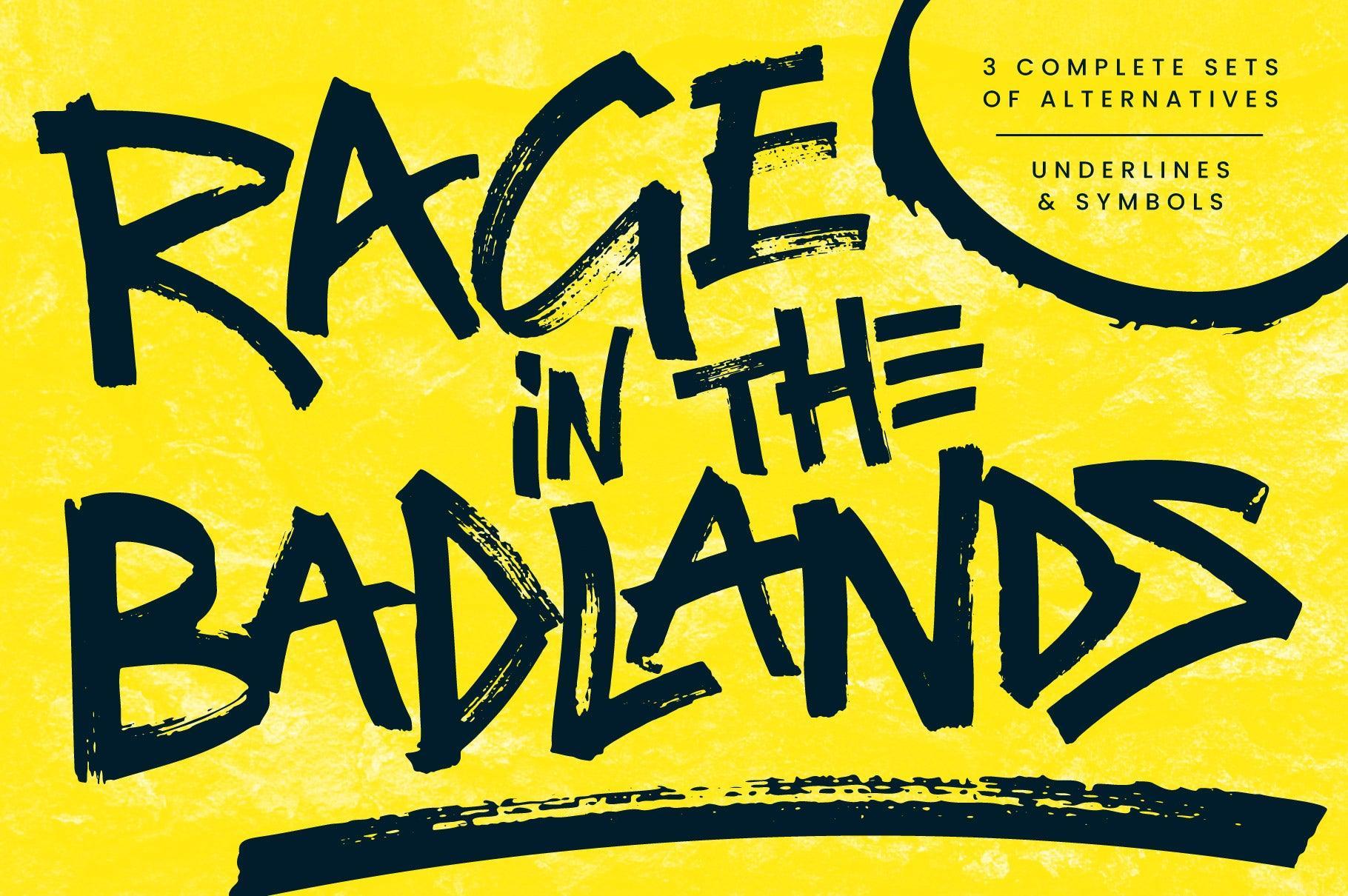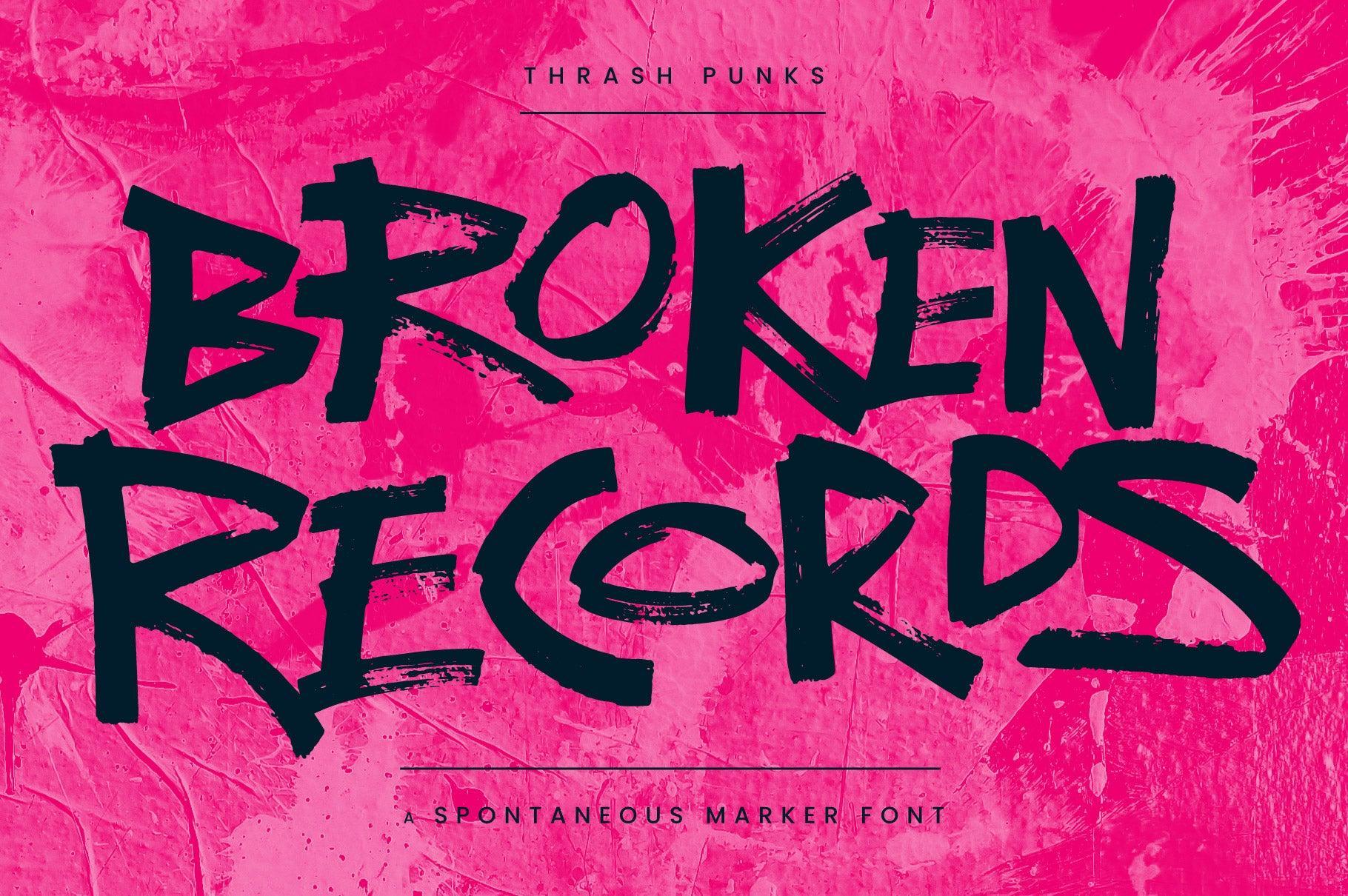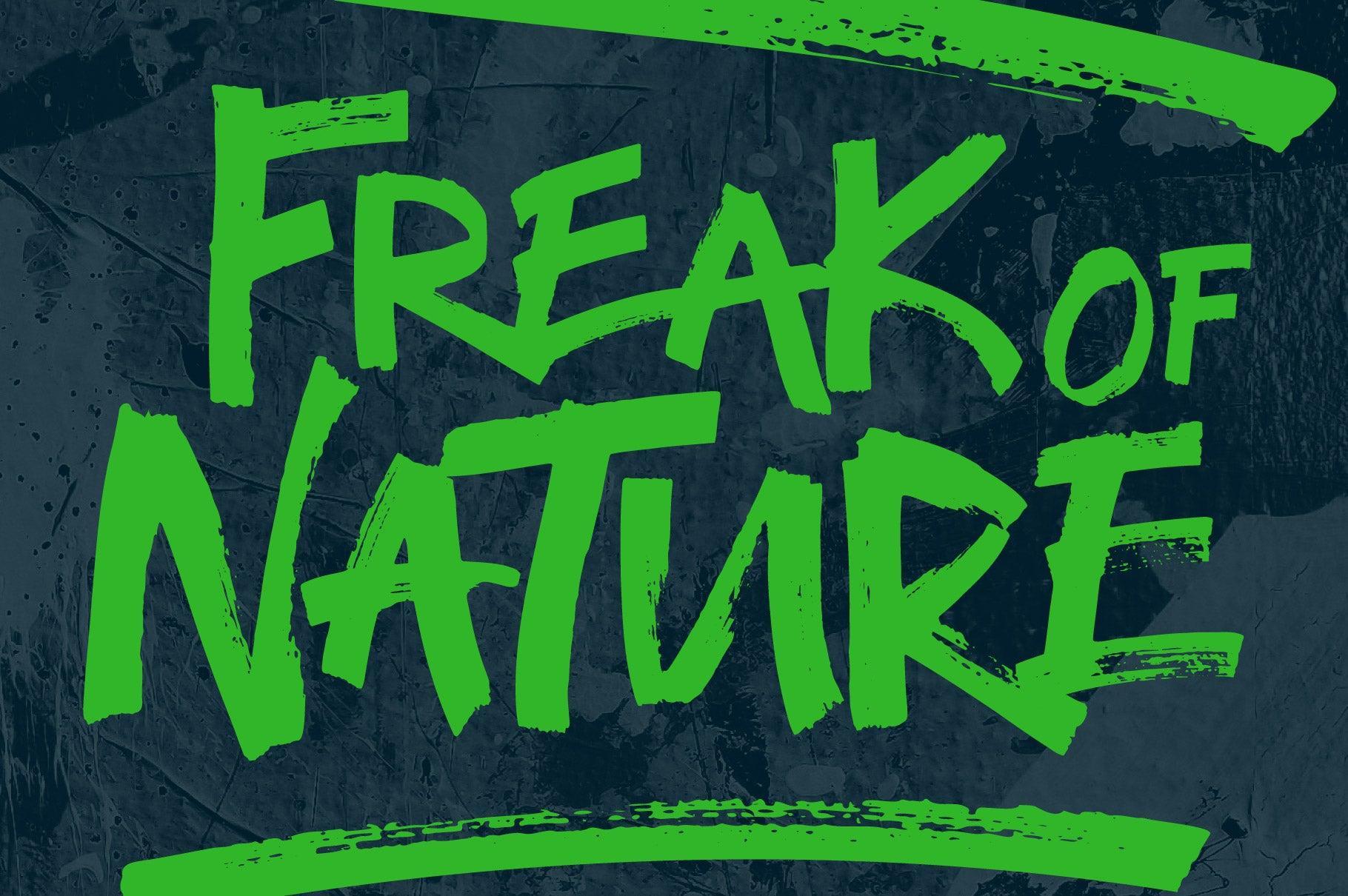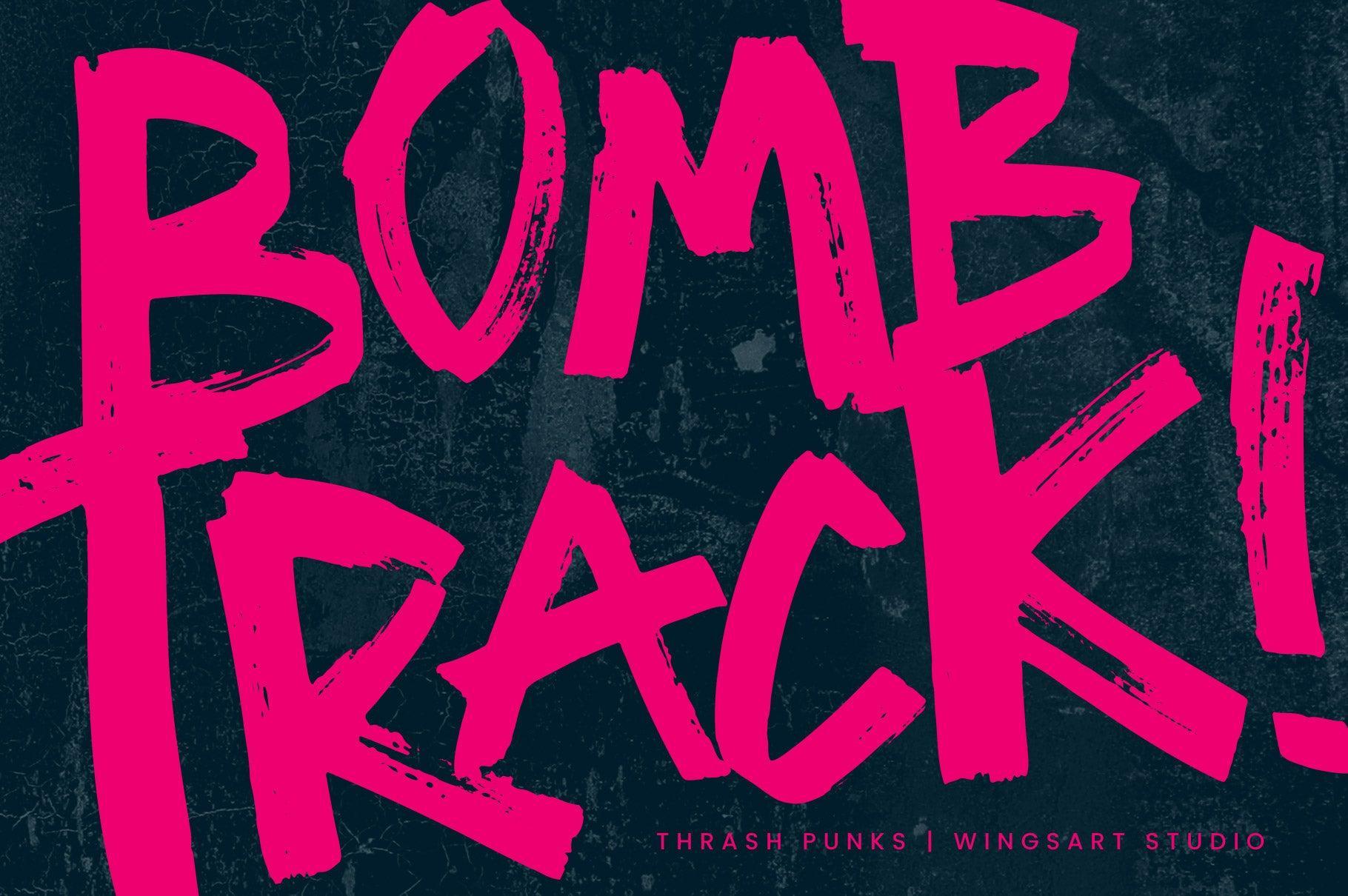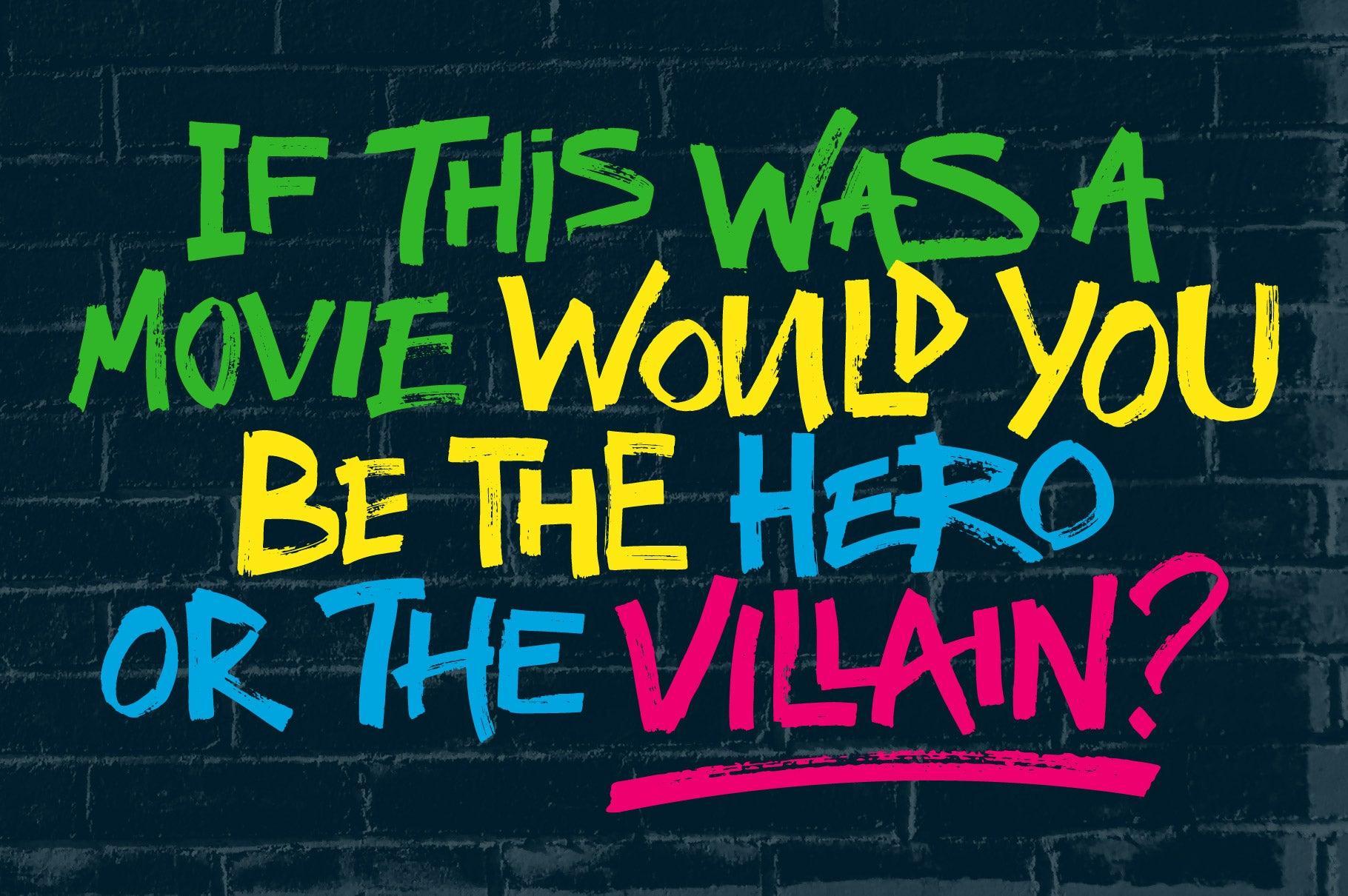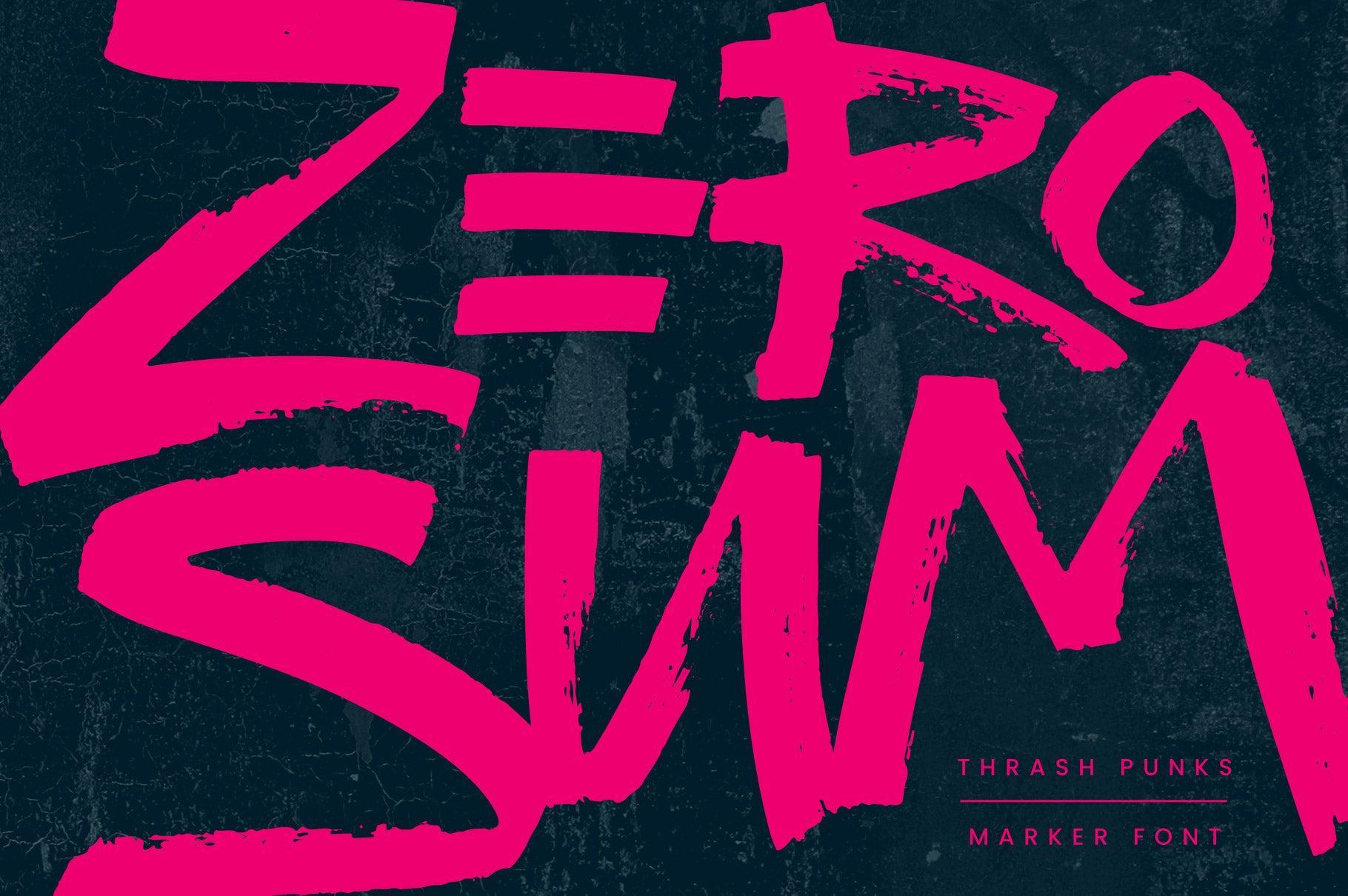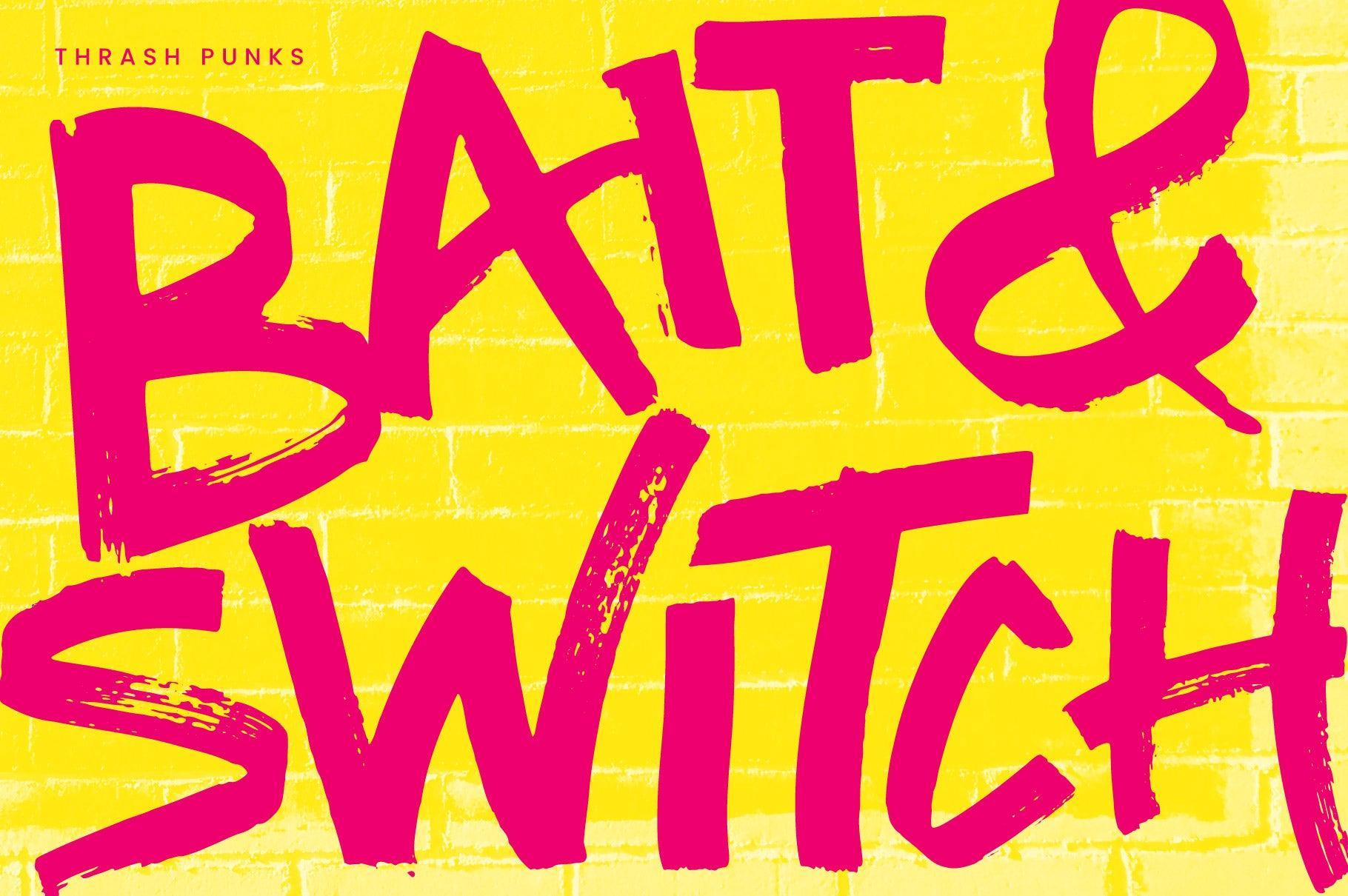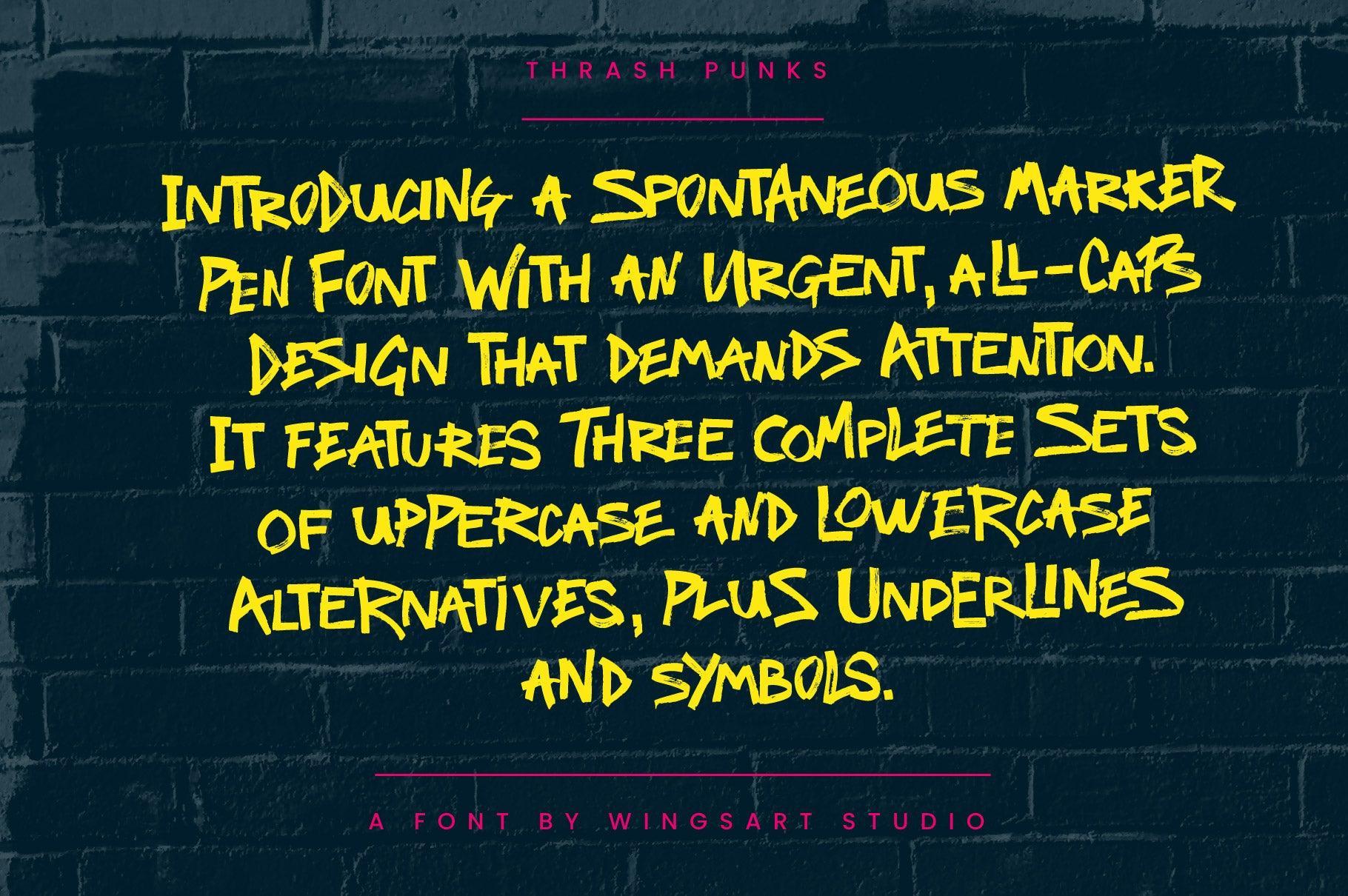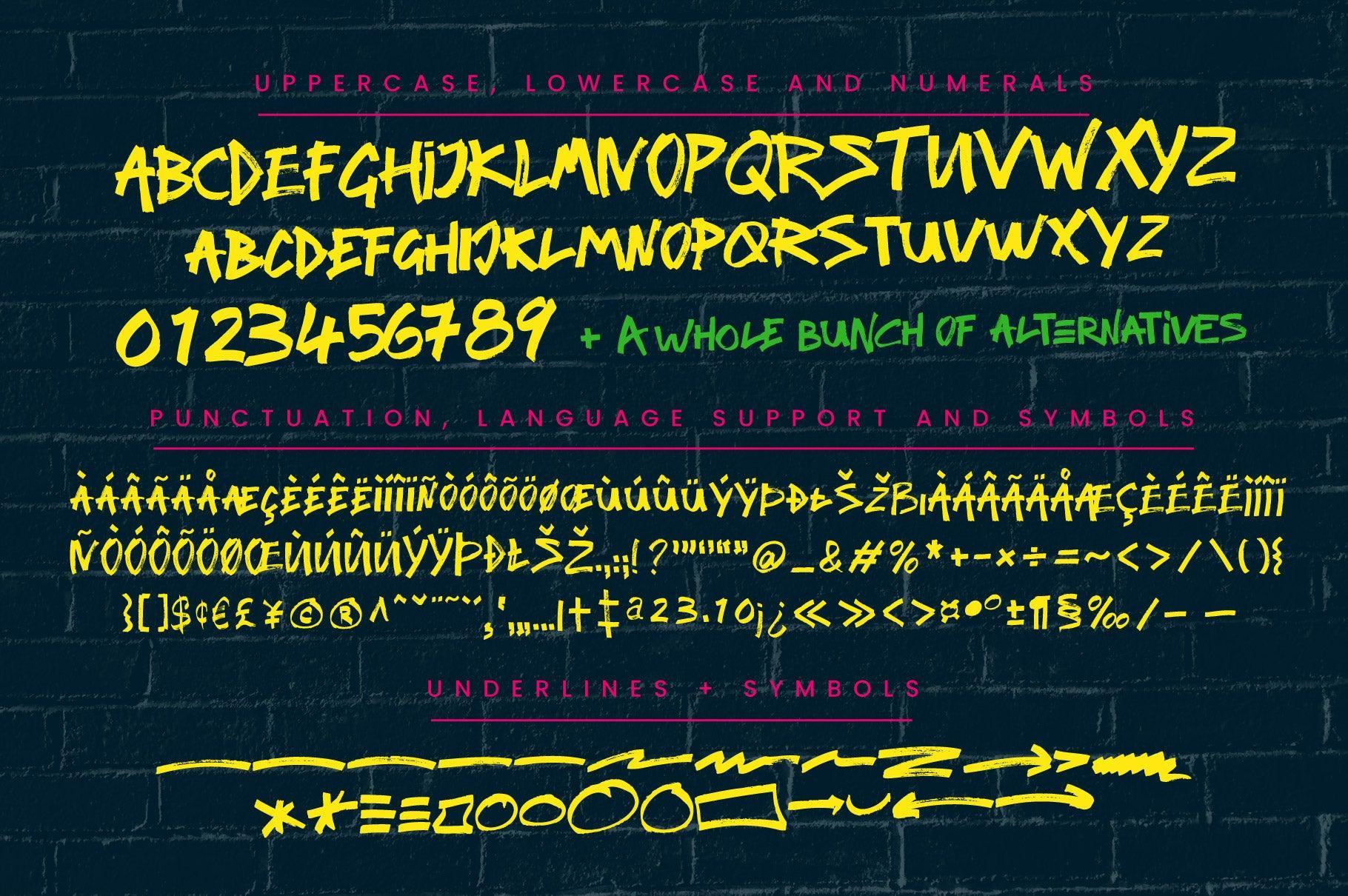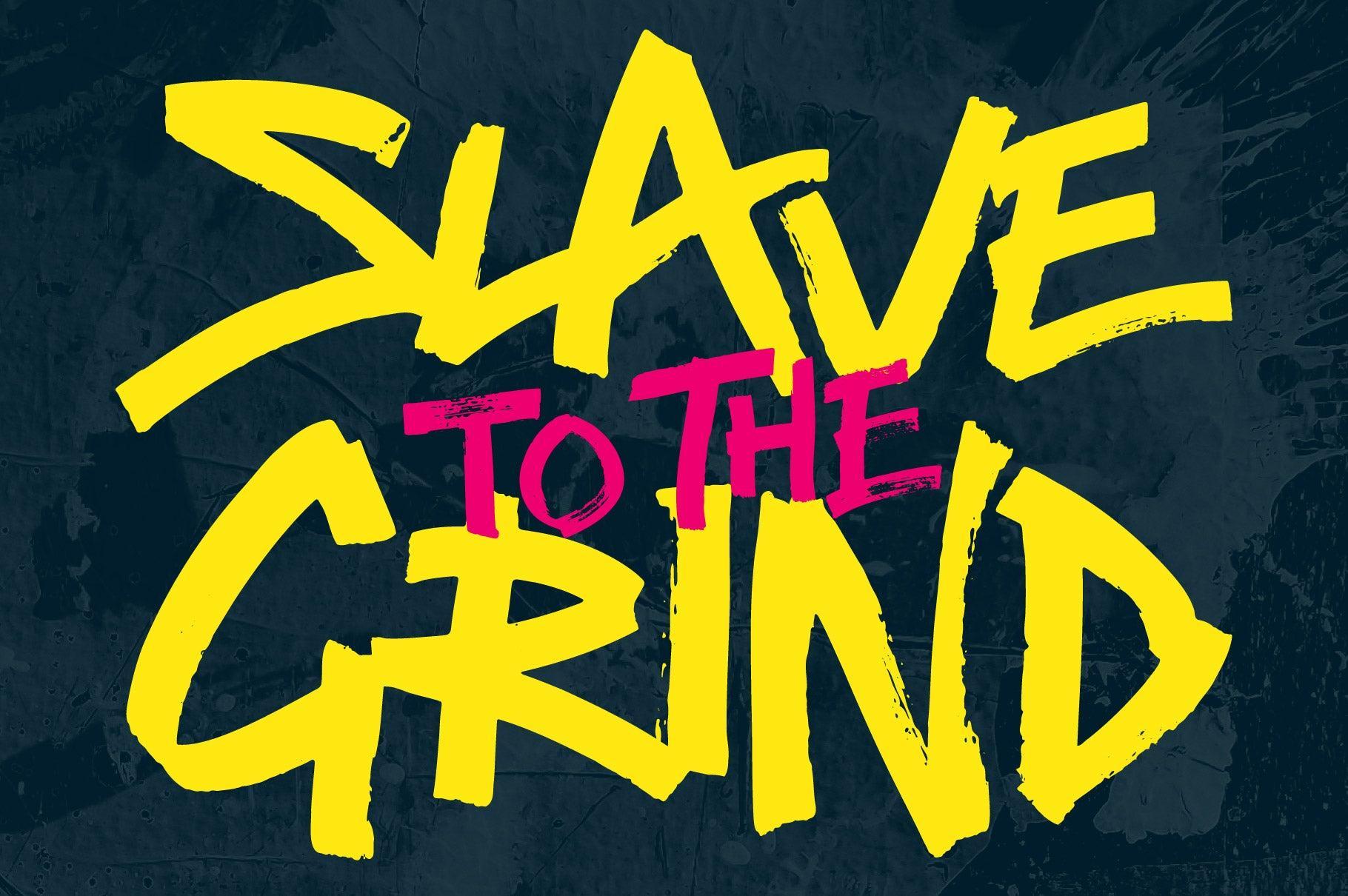
Thrash Punks: Chunky Marker Font
Thrash Punks is a chunky marker font featuring an all-caps design with three complete sets of uppercase and lowercase alternatives, along with underlines and symbols. It includes numerals, punctuation, and language support in OTF, TTF, and WOFF formats, providing a bold and textured typeface suitable for various design projects.
Ideal for bold, urban-inspired graphic design projects. Perfect for posters, packaging, retail signage, and album covers, ensuring a striking, legible presentation that captures attention and conveys an anti-establishment attitude.